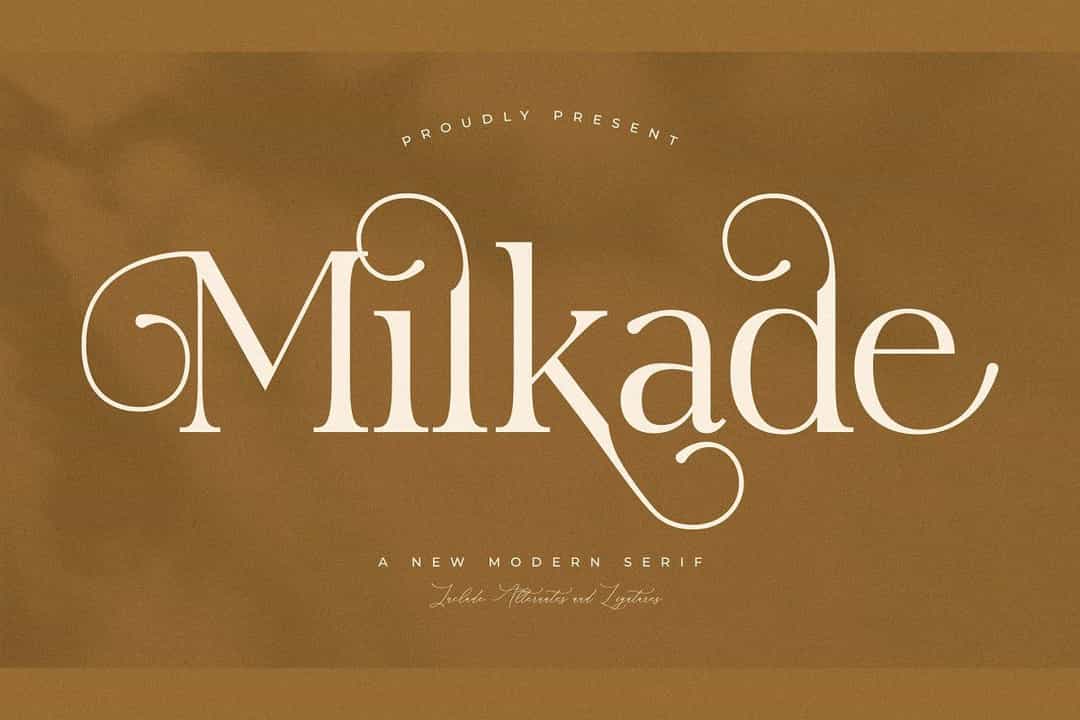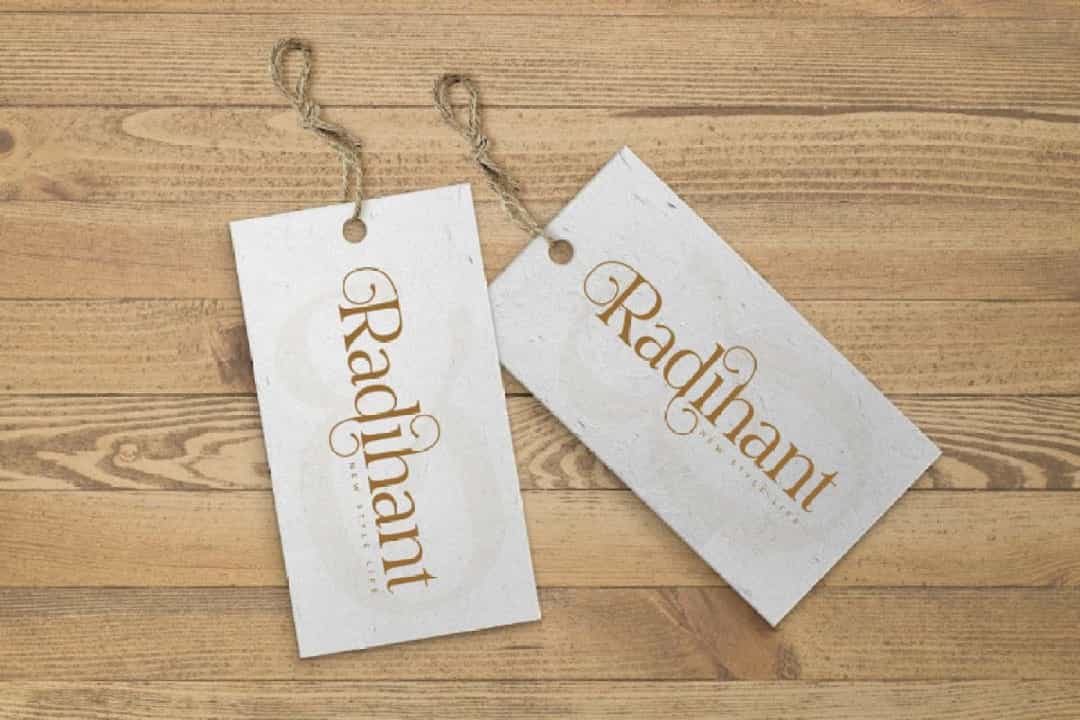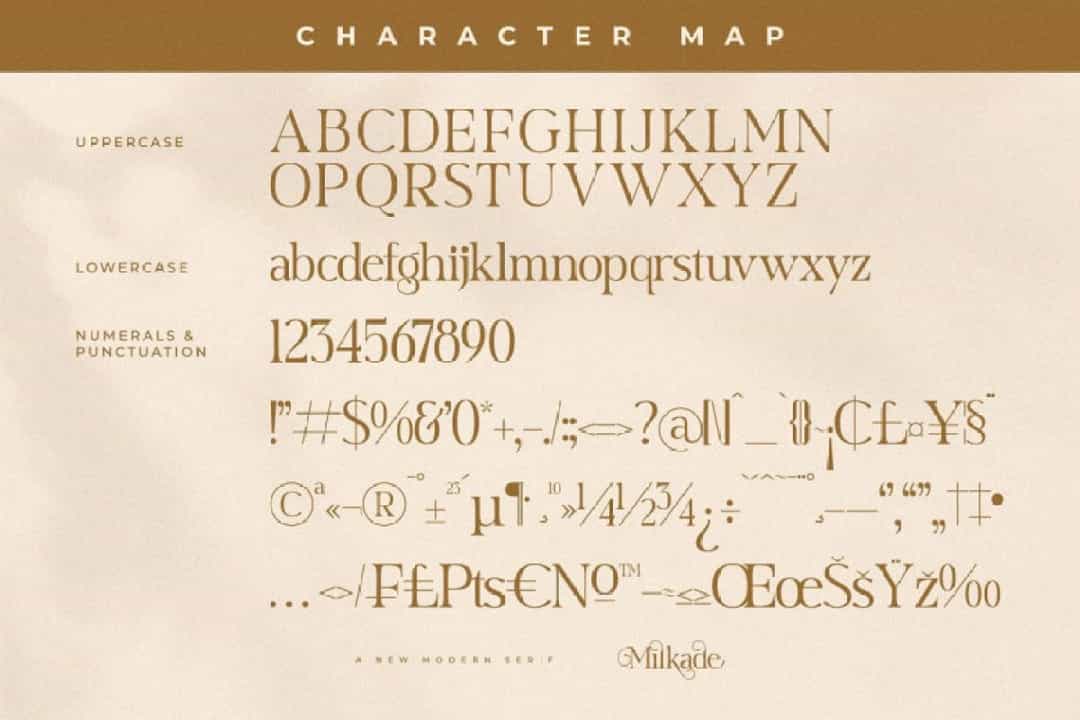
Milkadeis an elegant serif typeface with its own modern aesthetic. Perfect for creating stylish logos, movie or book name designs, clothing brand names, magazine letters and quotes and much more, Milkade is ideal for creating classy logos, movie title designs and movie name creation.